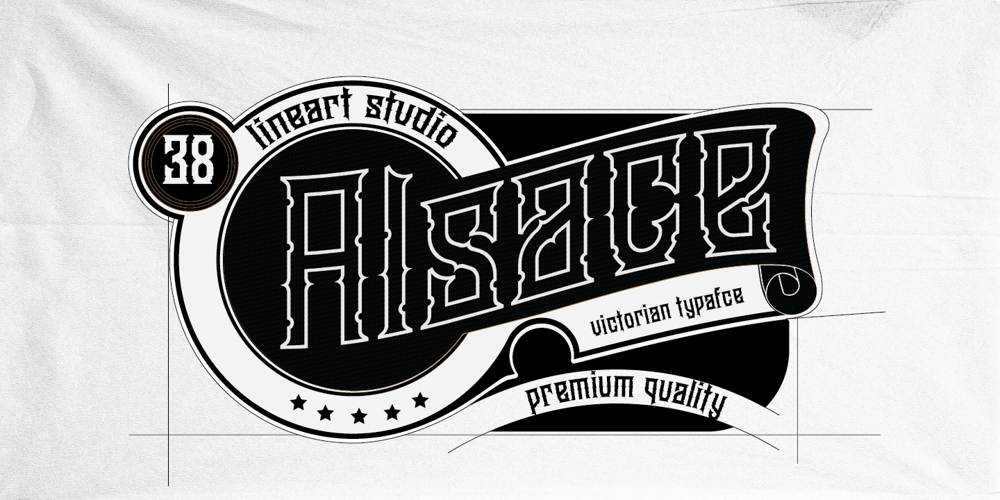
Alsace Font Family was designed by Muhammad Ridha Agusni and published by 38-lineart. Alsace contains 2 styles and family package options. Alsace is a powerful blackletter font. It features a great look and feel and it is perfect for logos, tattoo designs, branding, stationery and much more! vintage styled and assertive display font. Thick lettered and distinct, this font will make each of your designs stand out